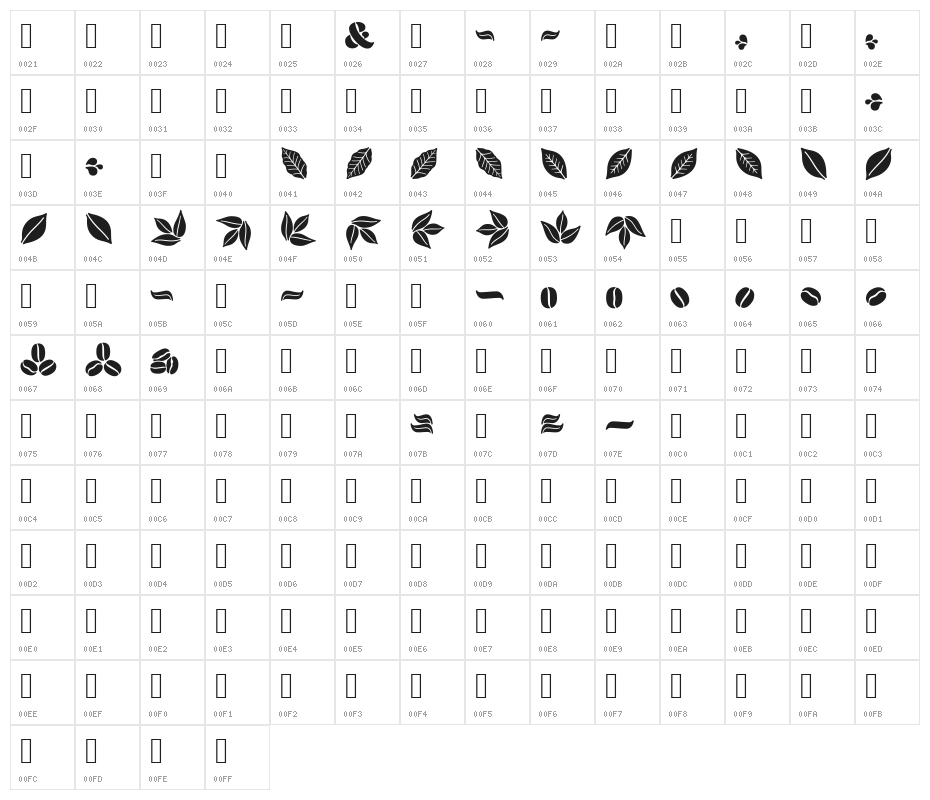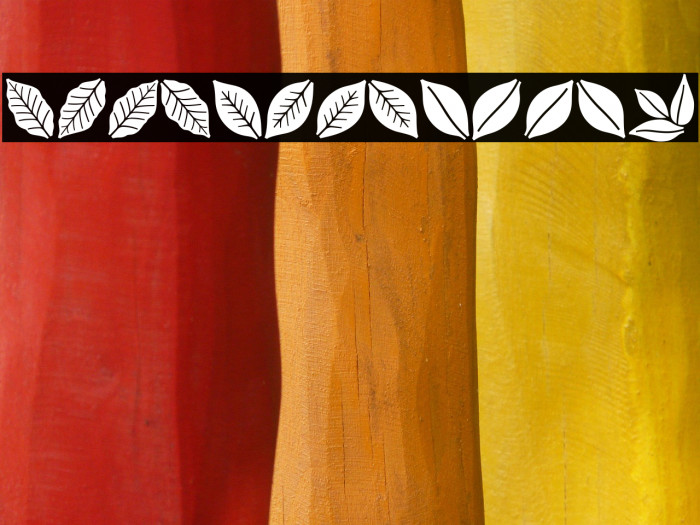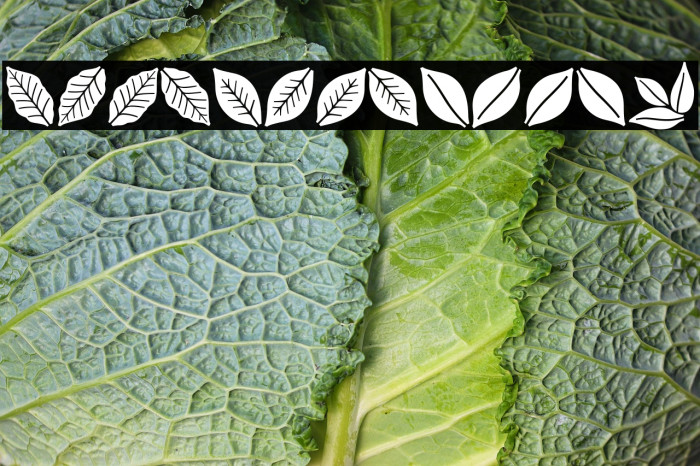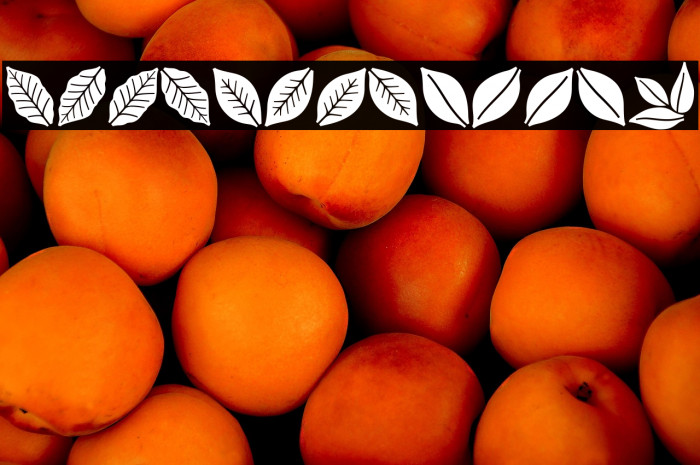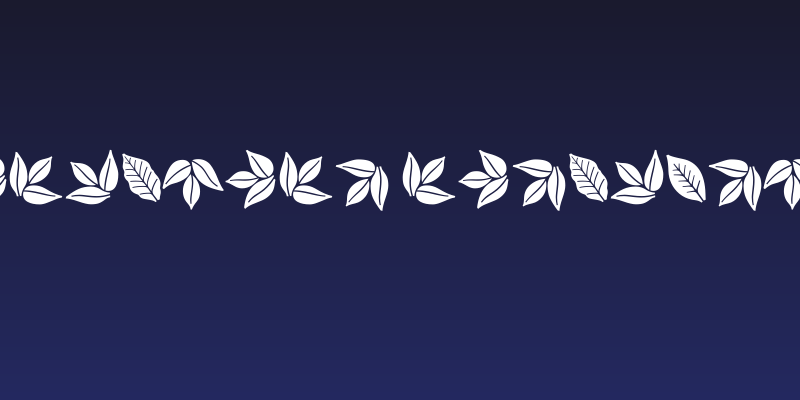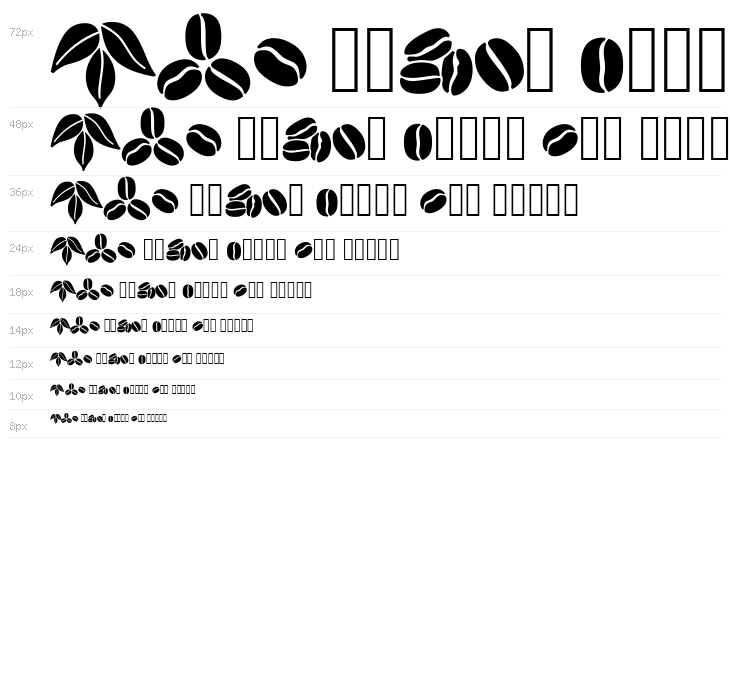
Aromatron Ornaments Font
Aromatron Ornaments Description
This is a decorative font featuring a variety of ornamental elements such as leaves, coffee beans, and abstract shapes. The design is bold and graphic, with high contrast between the solid black shapes and the negative space. The elements are arranged in a pattern-like sequence, creating a visually appealing and cohesive look. This font is ideal for adding a touch of nature-inspired or organic aesthetics to a design. The boldness of the elements makes them stand out, suitable for decorative purposes.
| Use Case | Logos, Decorative Borders, Packaging |
| Proposed Projects | Ideal for eco-friendly branding, packaging design, or decorative borders in print materials. |